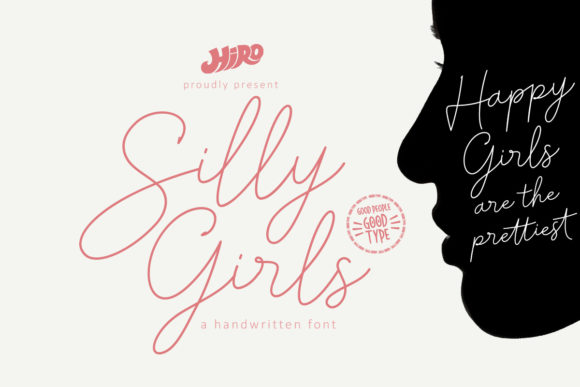
Introducing Silly Girls Font, a masterpiece crafted by HIRO.std, renowned for its enchanting and captivating nature. This exquisite script font exudes a timeless elegance, inviting you to embark on an extraordinary typographic journey.
Immerse yourself in the world of Silly Girls, where each letter dances gracefully upon the page, forming a symphony of beauty and harmony. Its delicate strokes and perfectly proportioned characters effortlessly complement a myriad of design concepts, breathing life into your creative visions.
With Silly Girls Font, you hold the key to unlocking a realm of possibilities. Picture the allure of a captivating novel, where the words flow effortlessly across the pages, drawing readers into a world of enchantment. Envision the charm of an enchanting wedding invitation, where every letter whispers a tale of love and forever.
Silly Girls Font is not merely a collection of letters; it is an expression of your imagination, a reflection of your unique style and personality. Whether you are a seasoned designer or simply seeking to add a touch of magic to your projects, Silly Girls Font will elevate your creations to new heights.
Indulge in the boundless creativity that Silly Girls Font offers. Let your imagination soar, and watch as your words transform into captivating works of art. Experience the joy of effortless typography, where every stroke and every curve adds a touch of elegance and enchantment.
Embrace the allure of Silly Girls Font and witness the transformation of your creative endeavors. Dive into the depths of its delicate beauty and allow your imagination to bloom.